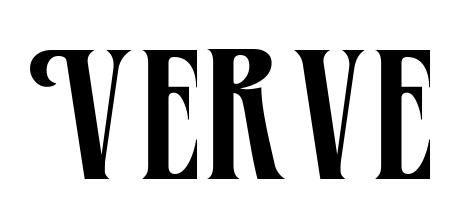
Verve
By Dieter Steffmann
Verve, a word that embodies energy and style, is presented in a font that reflects its meaning. The typeface is a bold serif, likely a classic or transitional style. Its upright, slightly condensed letters give a feeling of sophistication and confident strength, suggesting both elegance and power. The even spacing maintains a clean, impactful appearance.